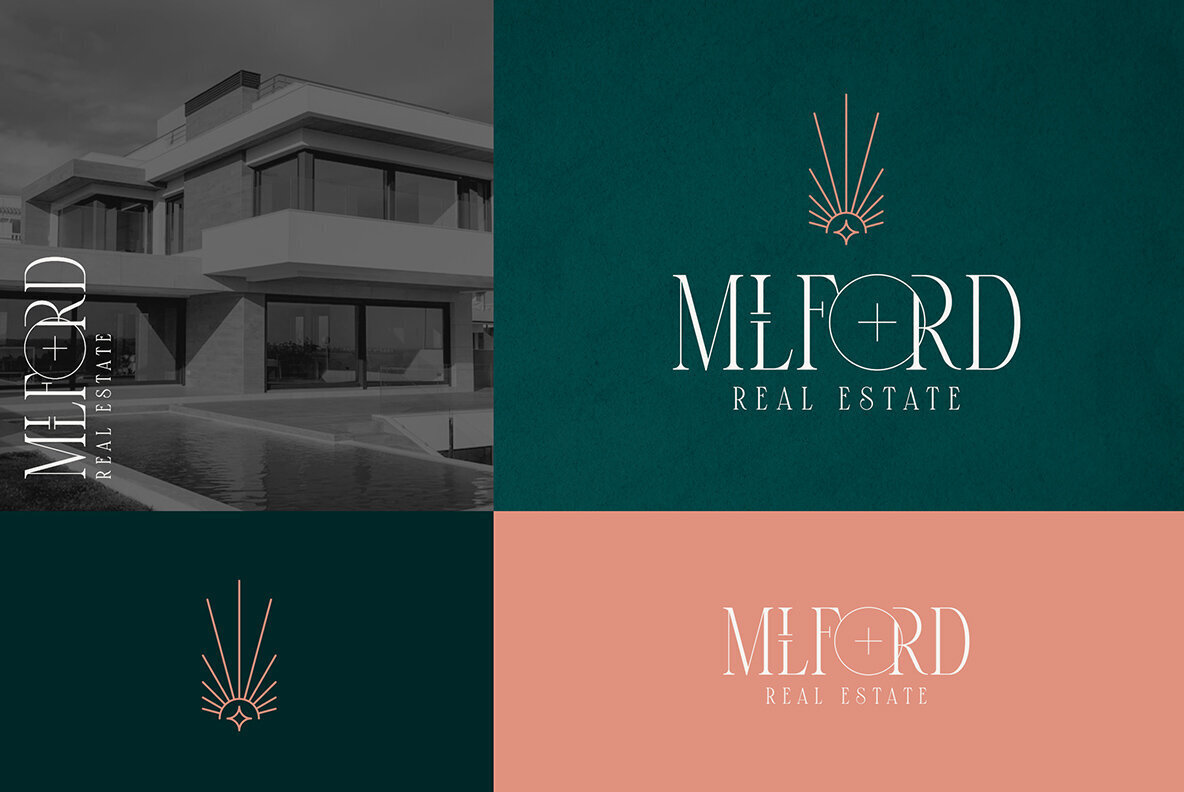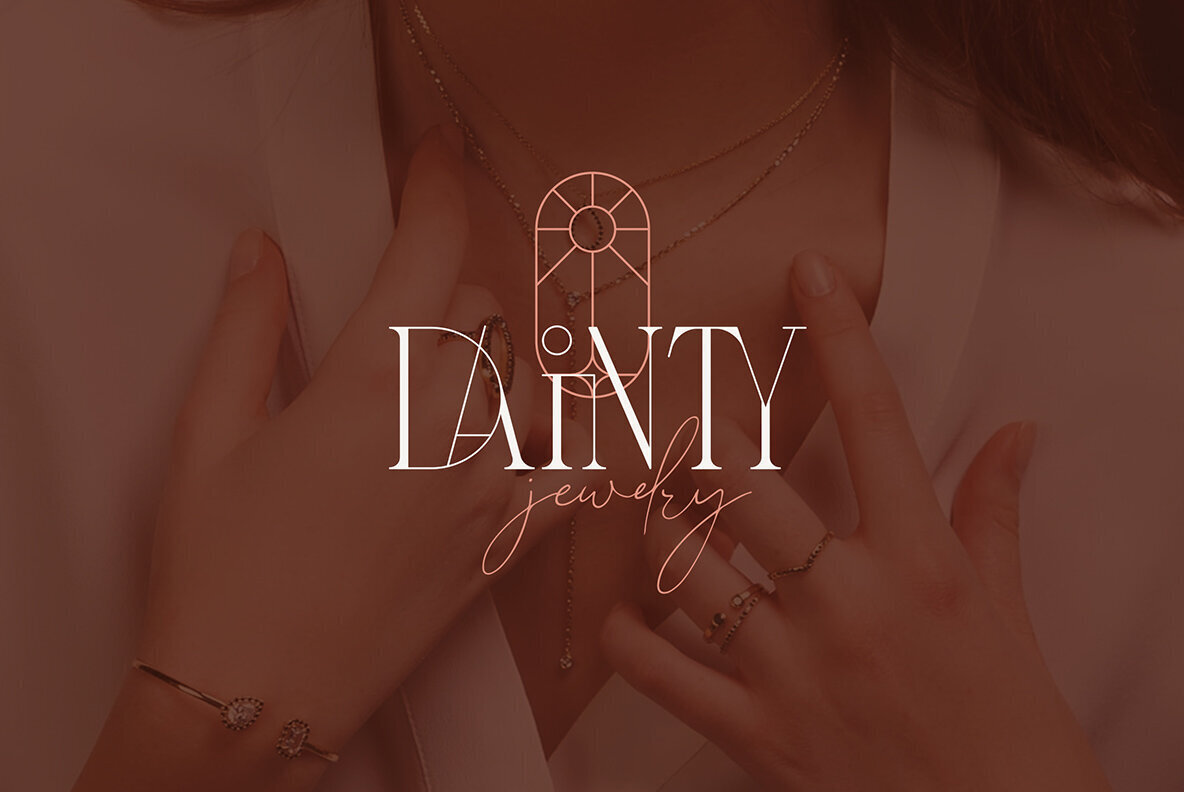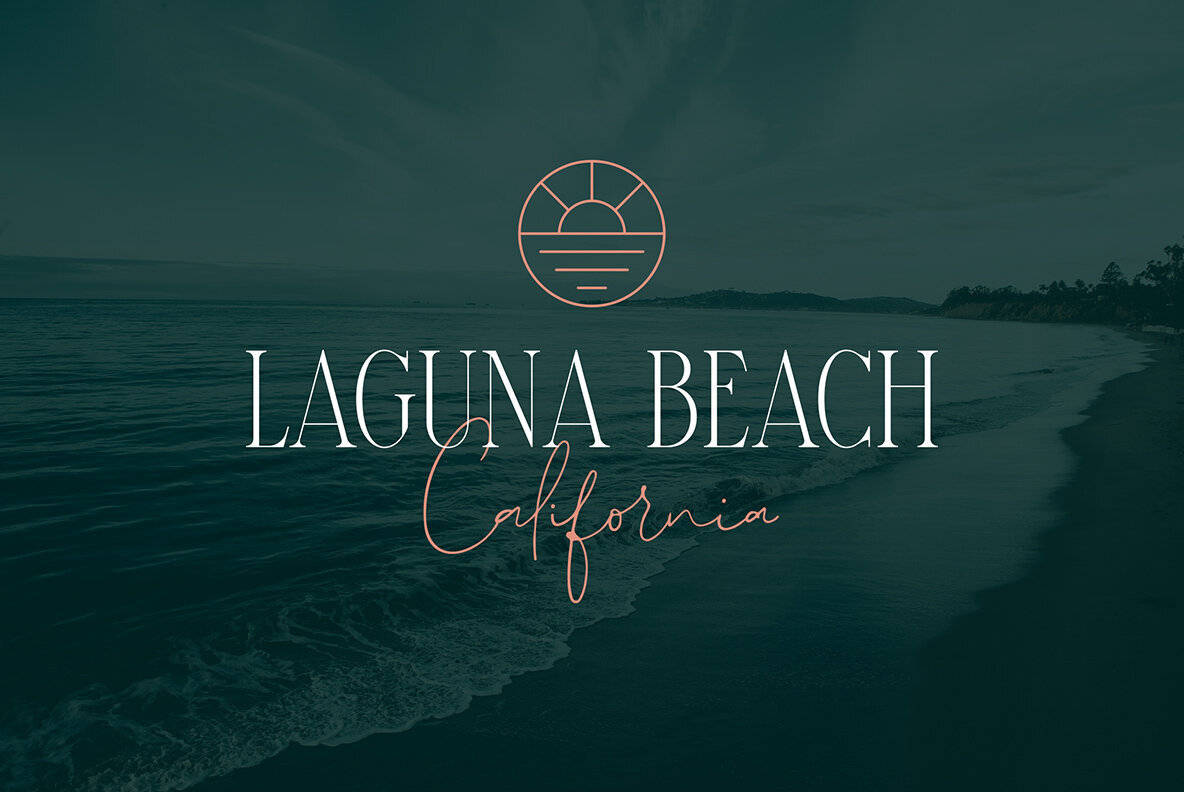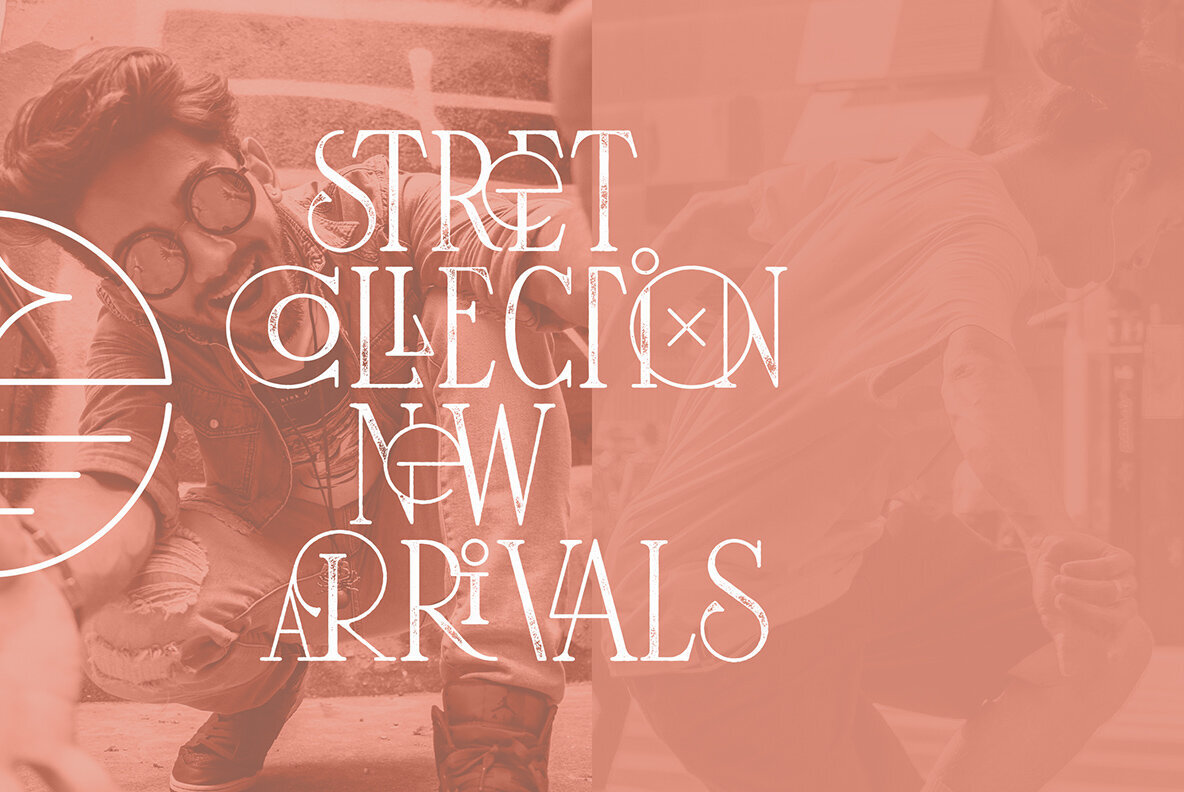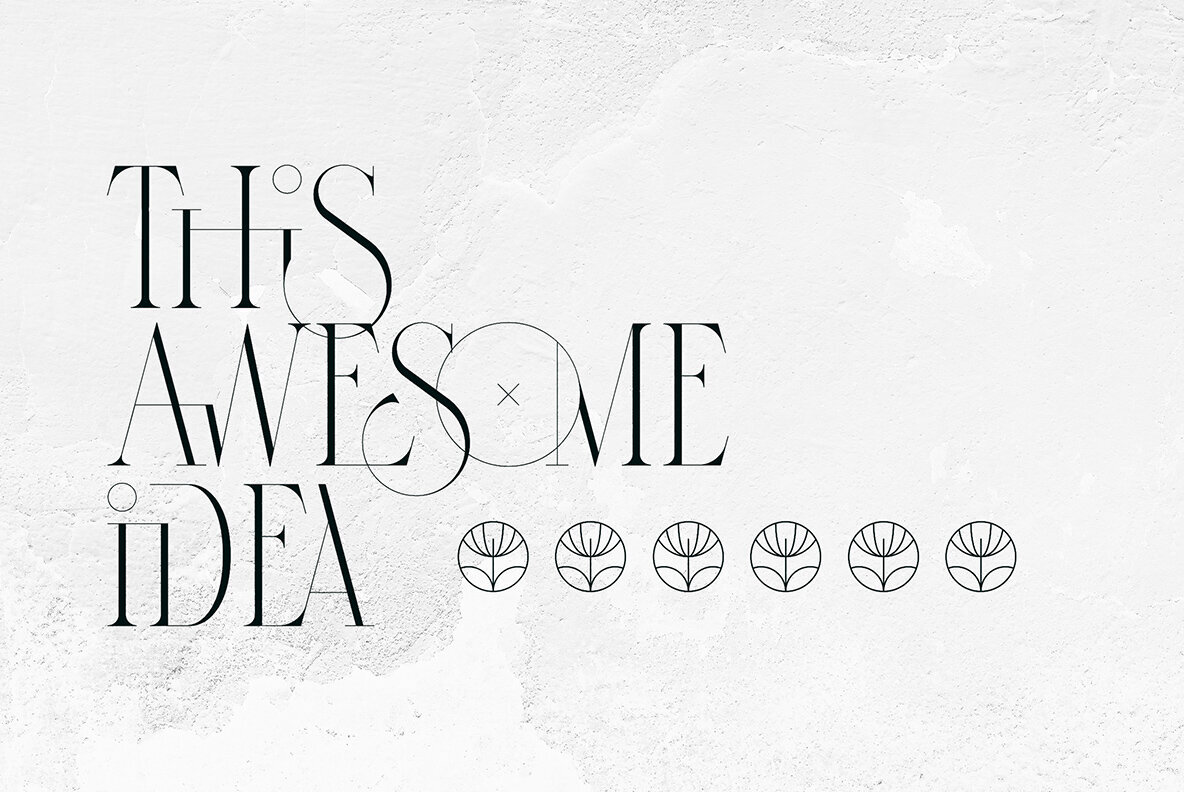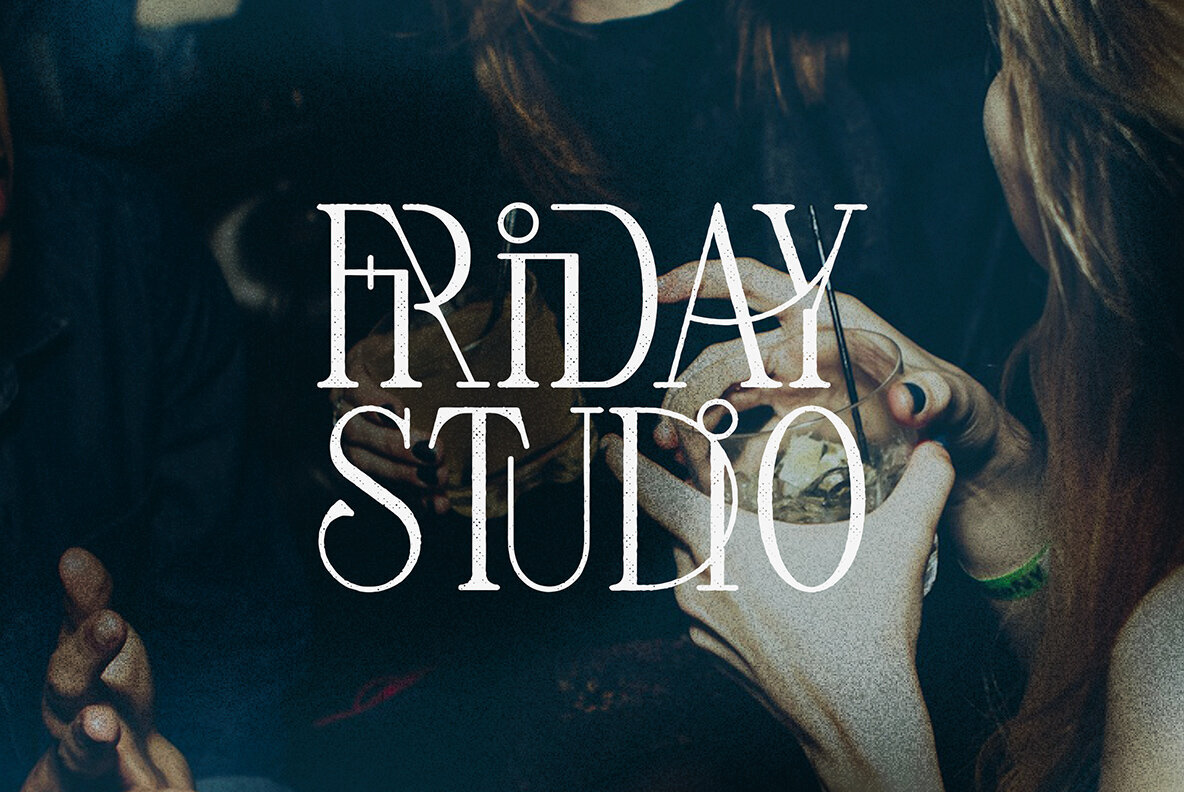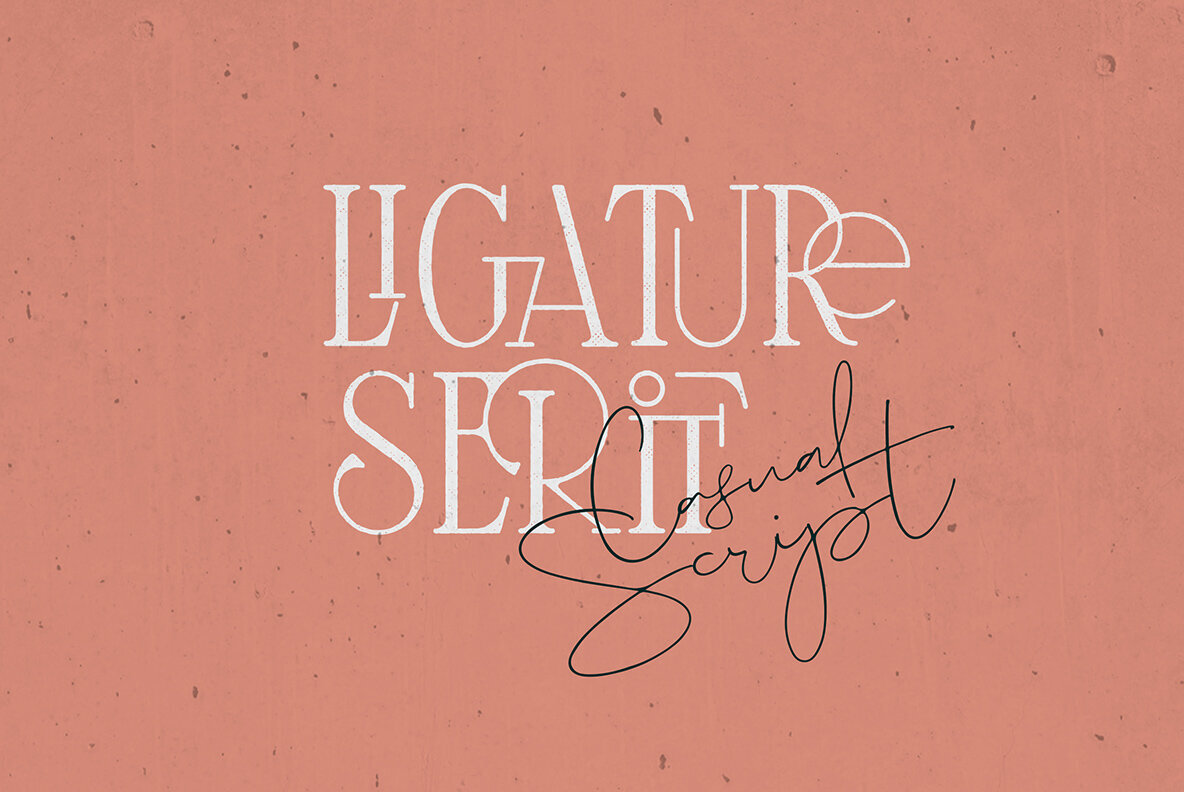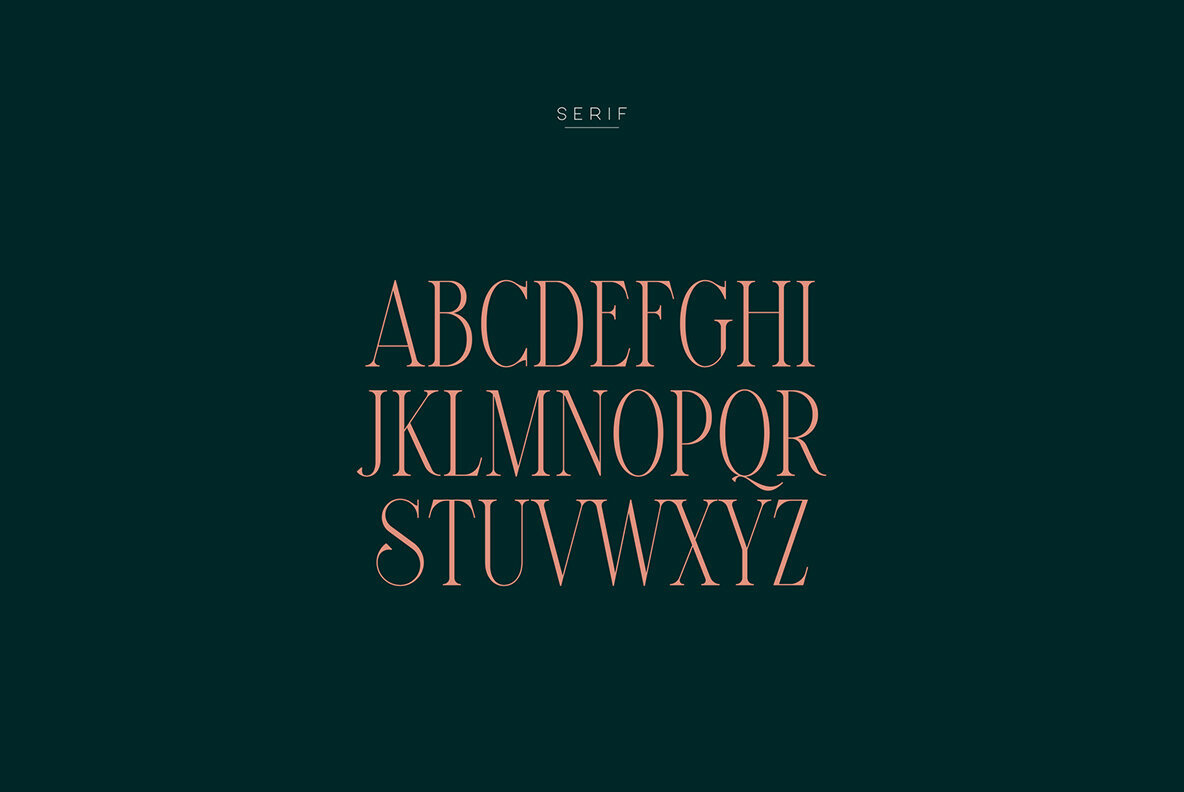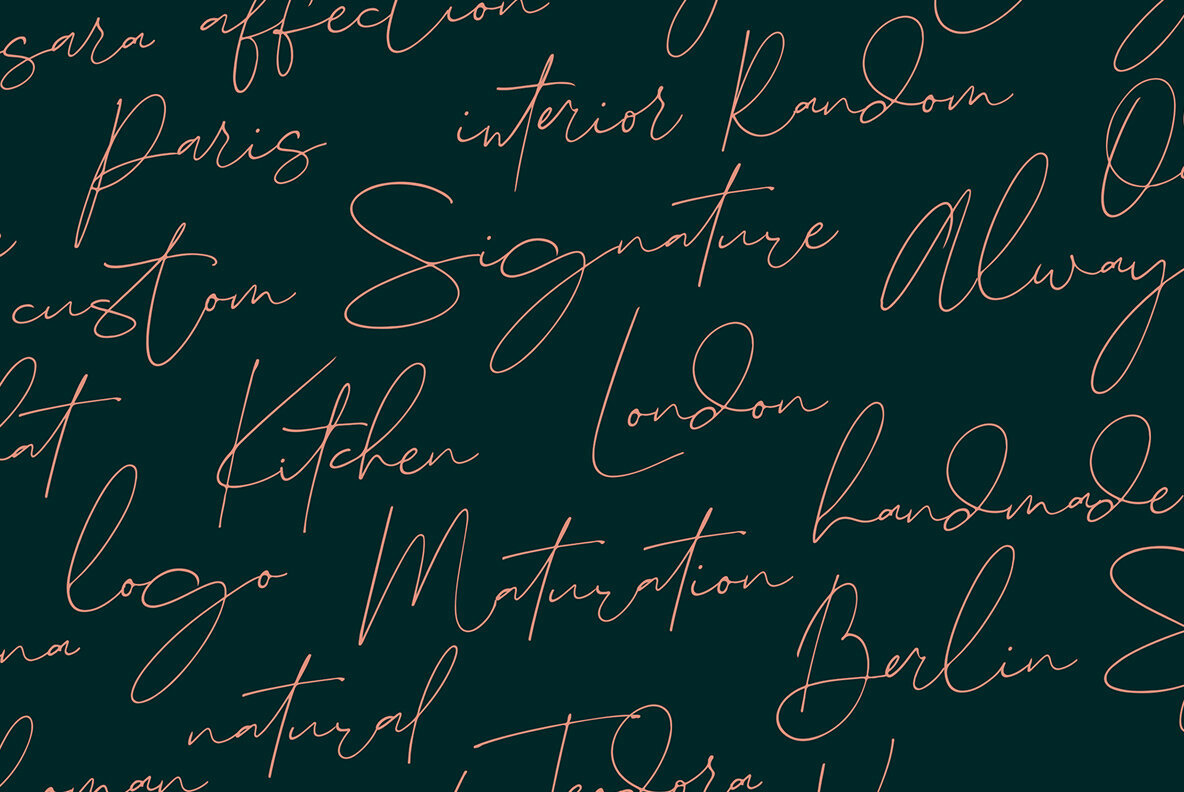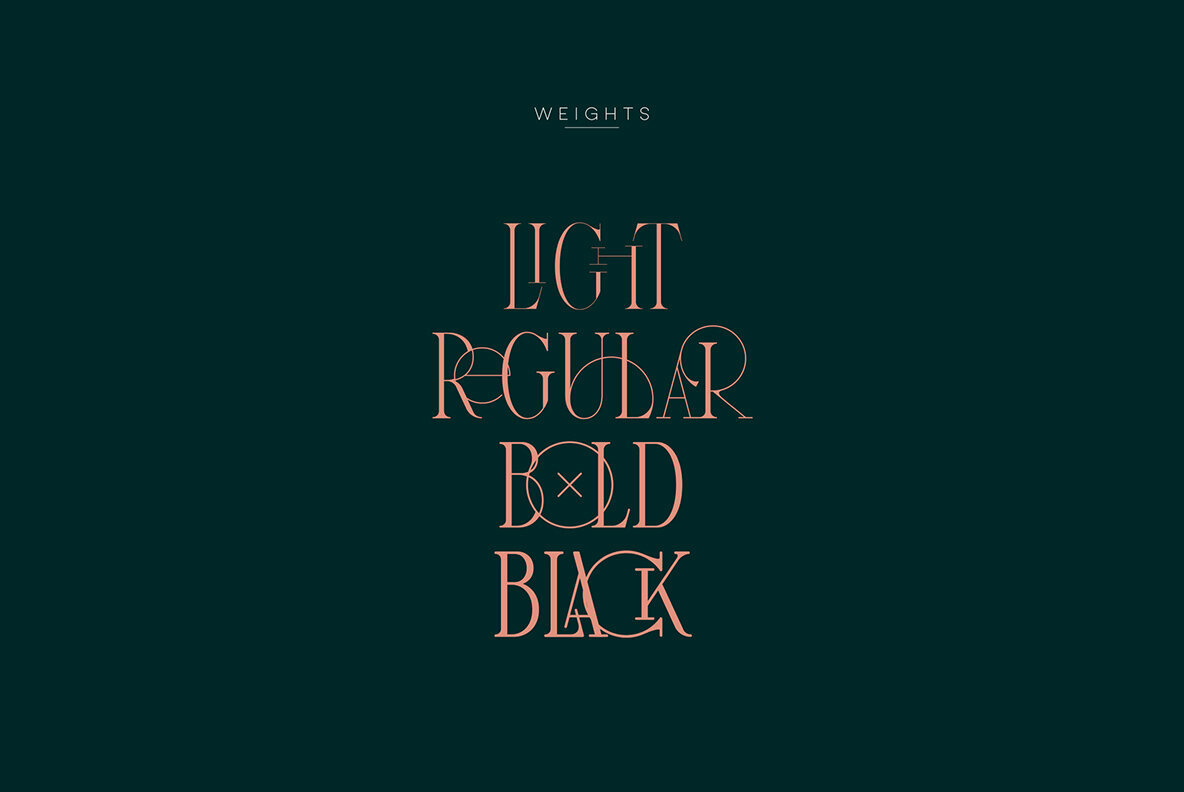
Maturation Font
Maturation is a versatile and elegant typeface supporting 87 languages, making it ideal for global applications. The serif version of Maturation offers four distinct weights and available in clean, rough, dots, and lines styles, providing a rich array of options for diverse design needs. Known for its ligature-rich serif, Maturation ensures seamless and aesthetically pleasing text flow. Additionally, Maturation includes a complementary script and a set of 26 icons, perfect for creating unique and cohesive logos. Whether for branding, editorial, or digital design, Maturation's comprehensive features cater to all creative professionals.